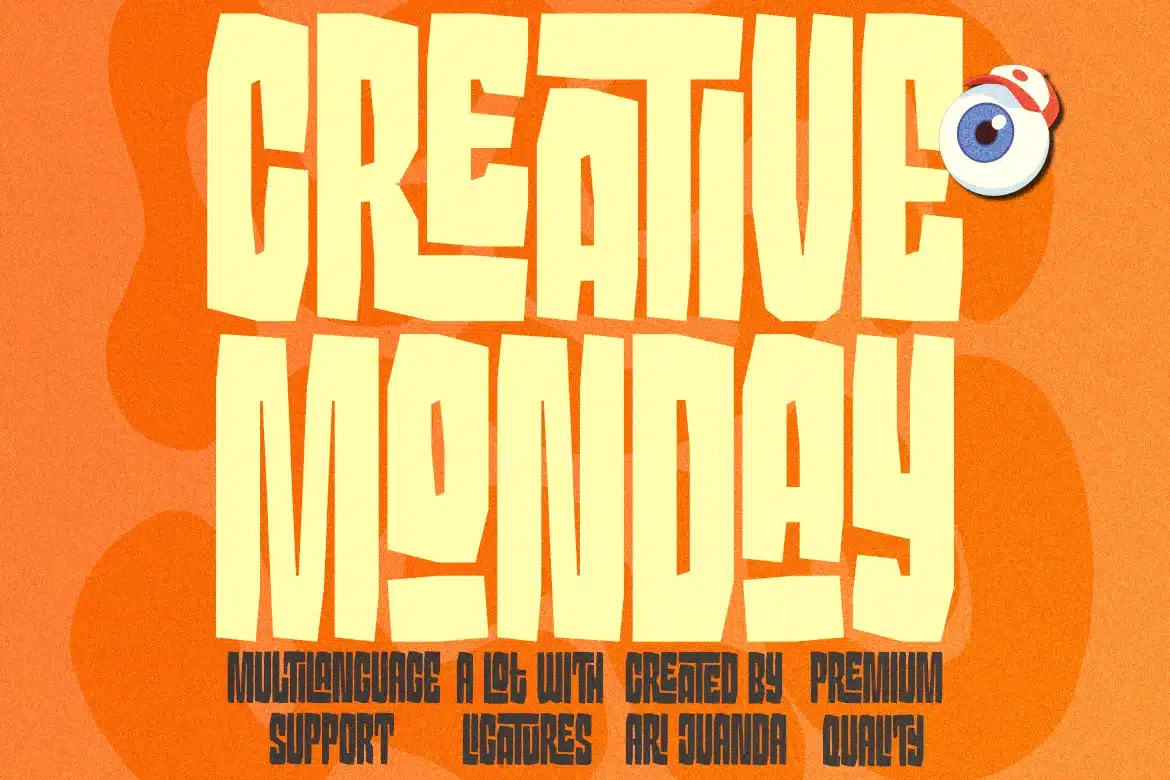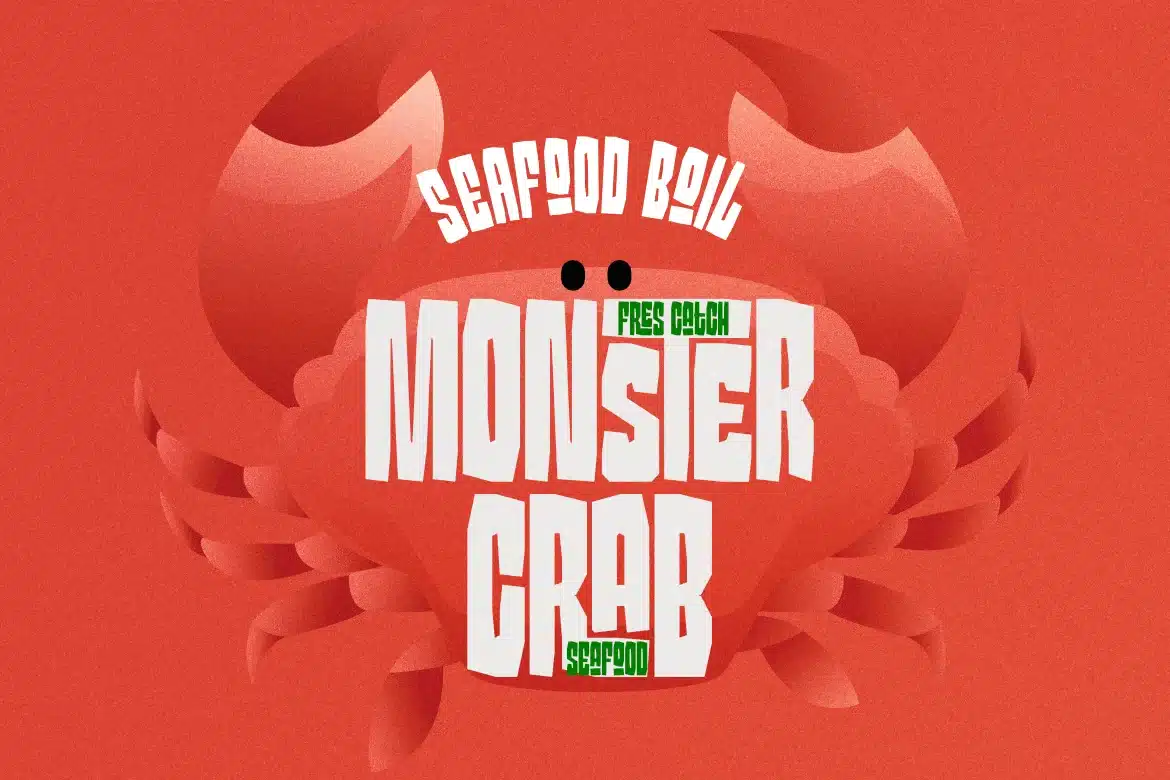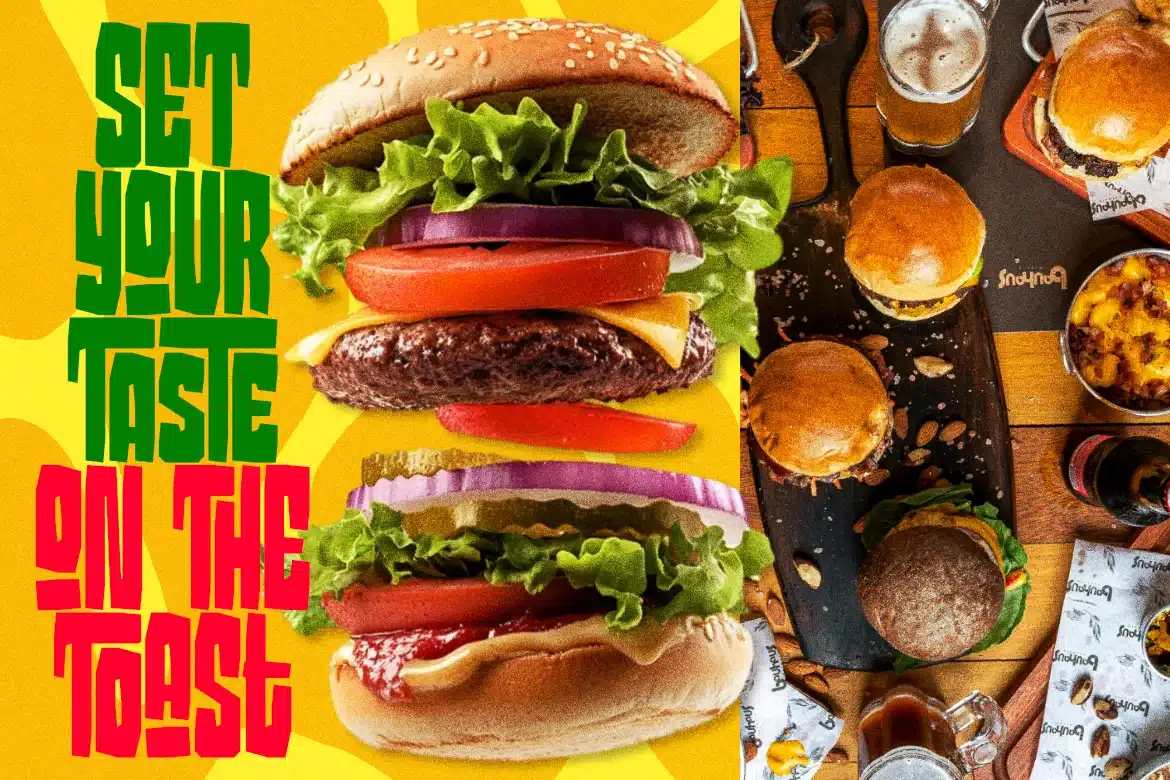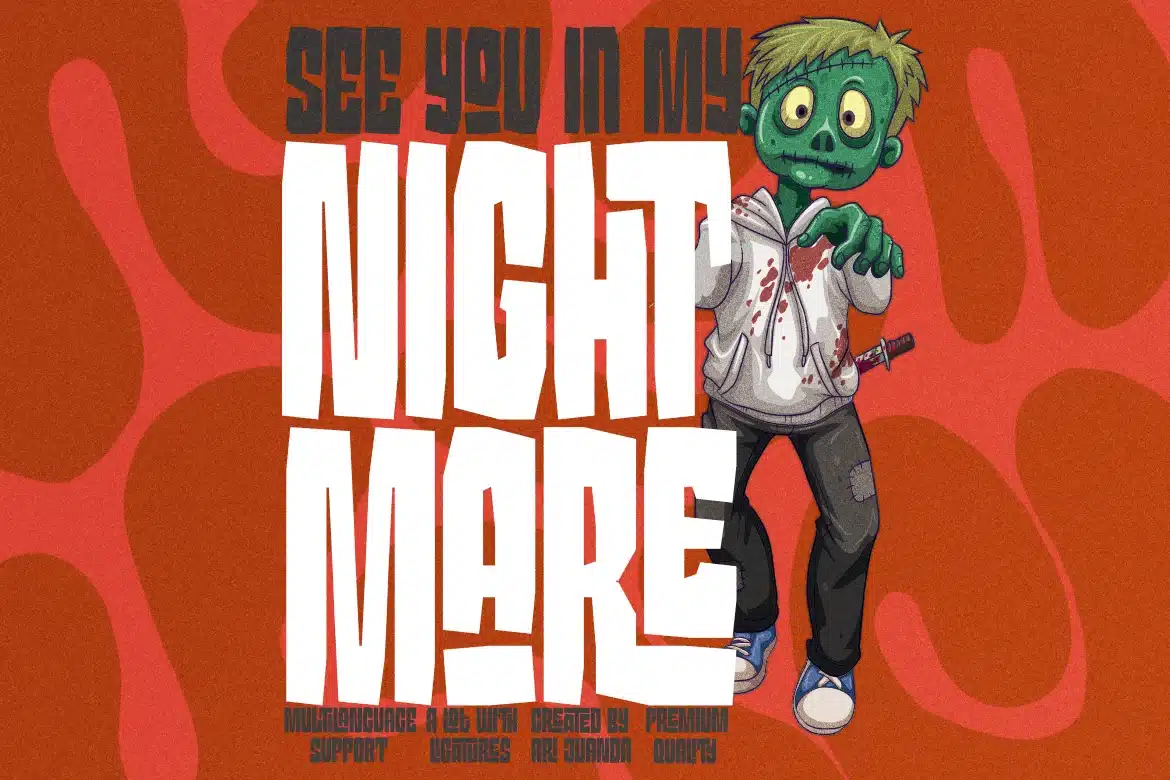
Classic Tomato Font
Classic tomato is a bold and expressive display typeface designed to deliver a strong and eye-catching visual impact. With its thick, solid letterforms and slightly playful proportions, this font is perfect for designs that aim to stand out and grab attention instantly, such as posters, branding, headlines, and merchandise.
One of the key features of Classic tomato is its rich set of ligatures, allowing letters to connect in unique and creative ways. These ligatures enhance the overall look of the typography, making each word feel more dynamic, stylish, and full of personality without losing readability.
*Ligatures character
*Multilingual support
*Numeral and Punctuation